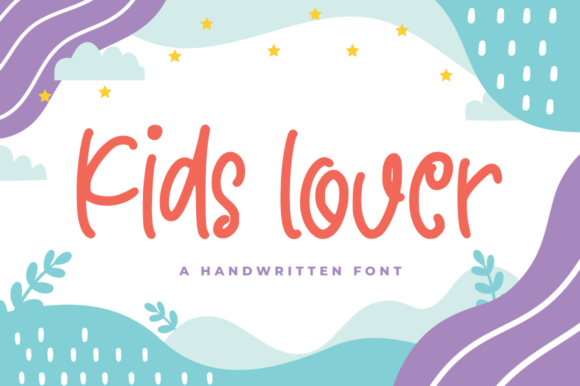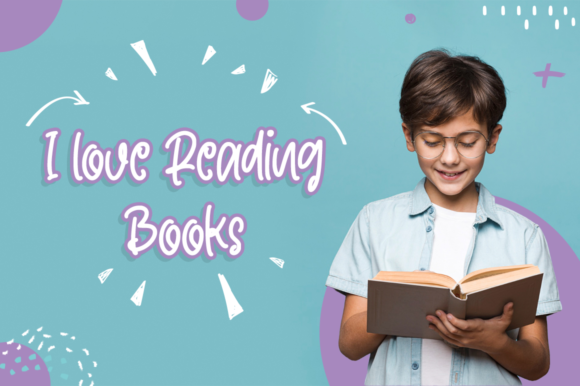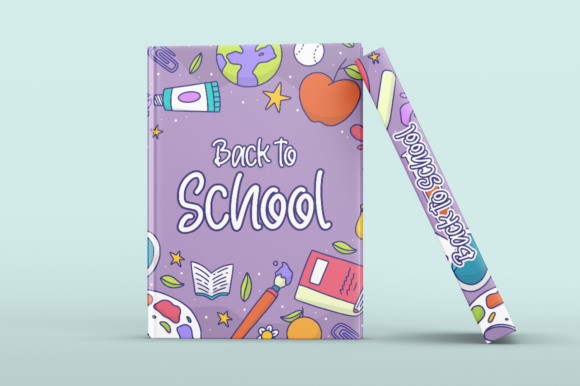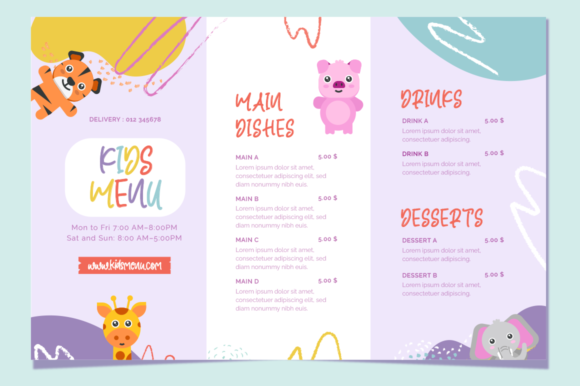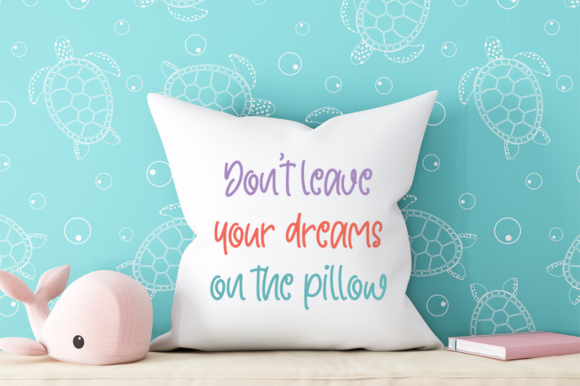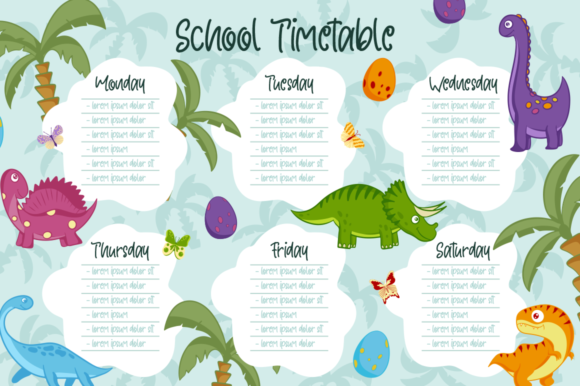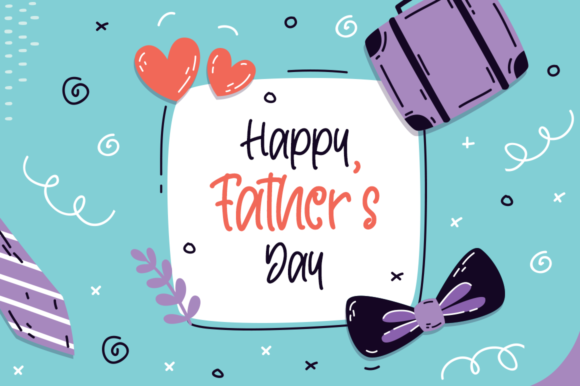
The Joy of Creating: Introducing Kids Lover Font
Have you ever been stuck on a project, but then your little one draws something adorable on a piece of paper and suddenly, your creative block is gone? That’s the magic of unbridled imagination, and it’s exactly what the Kids Lover Font embodies.
This enchanting display font is all about capturing the whimsy and playfulness of childhood, making it the perfect addition to any kids and school project. With its childlike charm, the Kids Lover Font is sure to bring a smile to your face and inspire you to think outside the box.
For designers, the Kids Lover Font is a valuable asset, offering a unique and authentic touch to any project. Its quirky personality is sure to set your work apart and leave a lasting impression on your audience.
Kids Lover Font Key Features
- Character Set: Multilingual support, including Latin, Cyrillic, and Greek alphabets
- Size and Resolution: Optimized for display at 72 dpi, scalable up to 1000 points
- Unique Characteristics: Hand-drawn illustrations and playful typography, perfect for children’s books and educational materials
- Font Style: Script and sans-serif styles available, with 6 font weights and 3 font styles
Designer Review: Kids Lover Font
Overall, I think the Kids Lover Font is a decent addition to any project that requires a playful, child-friendly vibe. Here’s what works well: ✨
- The font is quite whimsical and fun, which makes it perfect for children’s books, educational materials, or kids’ websites.
- The font is easy to read, even at smaller sizes, making it a great choice for titles or headings.
- The font is available in a range of weights and styles, allowing for some nice flexibility in design.
- The font can feel a bit too childish for certain projects, so it may not be the best choice for more formal or serious designs.
- The font’s whimsy can sometimes make it difficult to pair with more serious or formal fonts.
- The font’s range of weights and styles may not be as extensive as some other fonts on the market.
In terms of overall impression, I would give the Kids Lover Font 3.5 out of 5 stars. It’s a fun and playful font that’s perfect for certain projects, but may not be the best choice for others. With a bit more development and refinement, I think this font has the potential to be really great.
Use Kids Lover Font for children’s book covers, educational materials, party invitations, and any other project that requires a playful and youthful tone.
Experiment with different font sizes, colors, and styles to create visually appealing designs.
Combine Kids Lover Font with other fonts to create a unique and engaging visual identity.
Alternatives to “Kids Lover Font”
Great Vibes Font is a beautiful, handwritten script font that is perfect for creating a playful and fun atmosphere. It is ideal for use in children’s book covers, nursery decor, and other designs that require a youthful and energetic feel.
Compared to Kids Lover Font, Great Vibes Font has a more elegant and refined look, making it suitable for a wider range of designs. While Kids Lover Font is more cartoonish, Great Vibes Font has a more sophisticated feel.
Pacifico Font is a beautiful, cursive font that is perfect for creating a relaxed and casual atmosphere. It is ideal for use in designs that require a touch of elegance and sophistication, such as wedding invitations, restaurant menus, and other designs that require a sense of refinement.
Compared to Kids Lover Font, Pacifico Font has a more mature and sophisticated look, making it less suitable for children’s designs. However, it can be used in designs that require a playful and whimsical feel, but with a more adult-oriented twist.